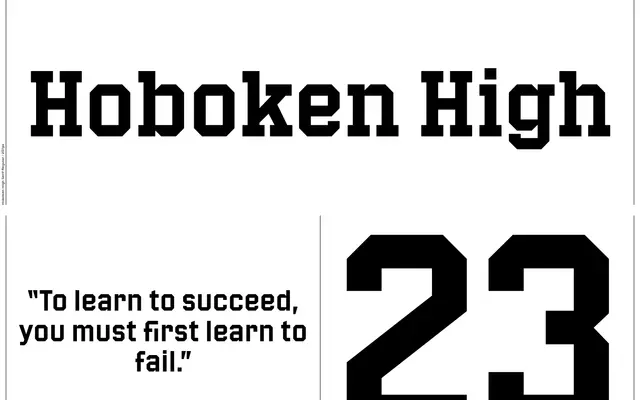
LL Hoboken High
Lineto · Nico Schweizer · 1998
A locker-room display typeface in sans and slab serif cuts, originally released in 1998 and designed by Nico Schweizer out of Hoboken, NJ.
Designed while Schweizer was based in Hoboken, the typeface carries the constructed, blocky character of sports jerseys and institutional signage. Available in both sans and slab serif variants since its 1998 release, it is currently being expanded to four cuts. The family suits display work where a bold, athletic register is required.
The family includes both a sans and a slab serif cut, both with a geometric, constructed character typical of display-oriented sports and institutional lettering. The sans is the primary classification given its dominant use in the page specimens.